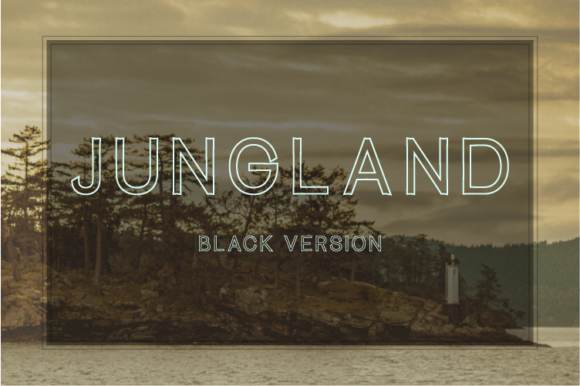
Step into the realm of undeniable sophistication with Jungland Outline Black, a font that embodies the pinnacle of elegance and charm. Crafted with meticulous precision by the renowned Nan Design, Jungland Outline exudes a captivating warmth that will elevate your creative endeavors to breathtaking heights.
As a sans serif masterpiece, Jungland Outline Black boasts clean lines and striking angles, lending itself perfectly to a symphony of design applications. Its versatility knows no bounds, empowering you to craft unforgettable branding, captivating headlines, heartfelt wedding invitations, and eye-catching logos that leave an indelible mark.
Immerse yourself in the world of Jungland Outline Black, where imagination takes flight and creativity knows no limits. Its unique character adds a touch of sophistication to any project, transforming mundane designs into works of art that evoke emotion and capture attention.
With Jungland Outline Black, you hold the key to unlocking a world of endless possibilities. Let its allure captivate your senses as you embark on a journey of limitless creativity. Its distinctive style will elevate your designs, leaving a lasting impression that whispers of elegance and timeless beauty.